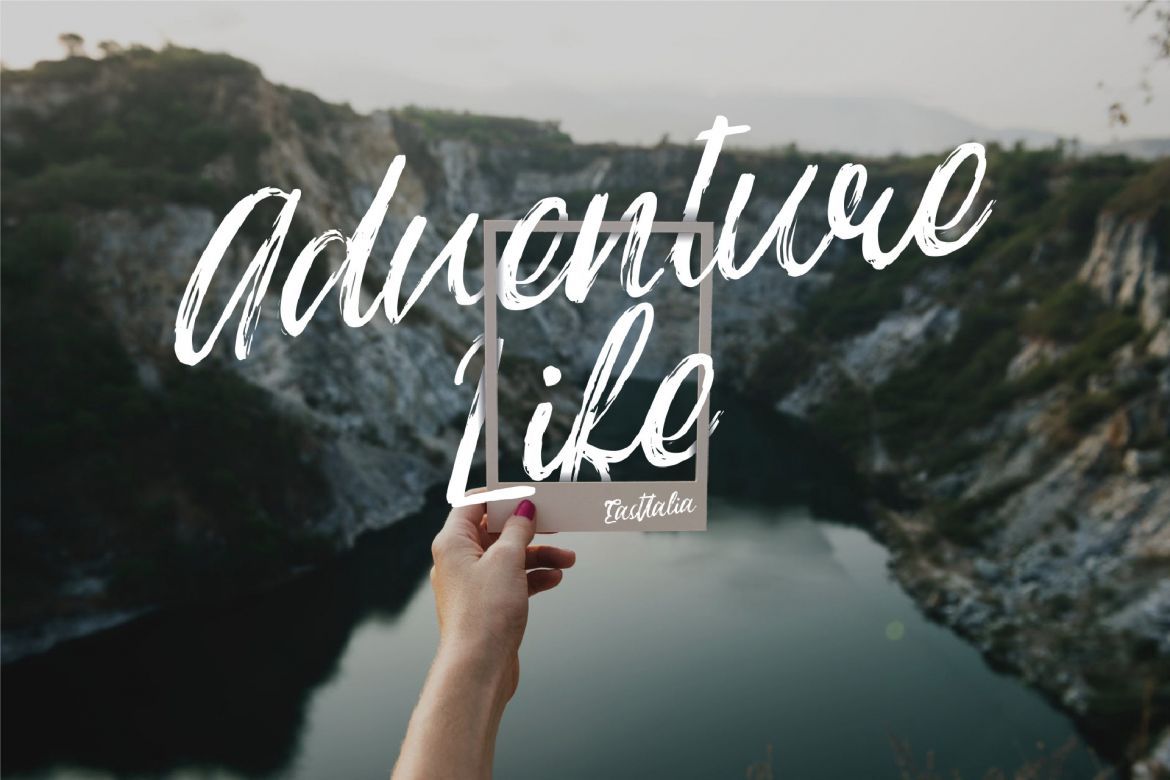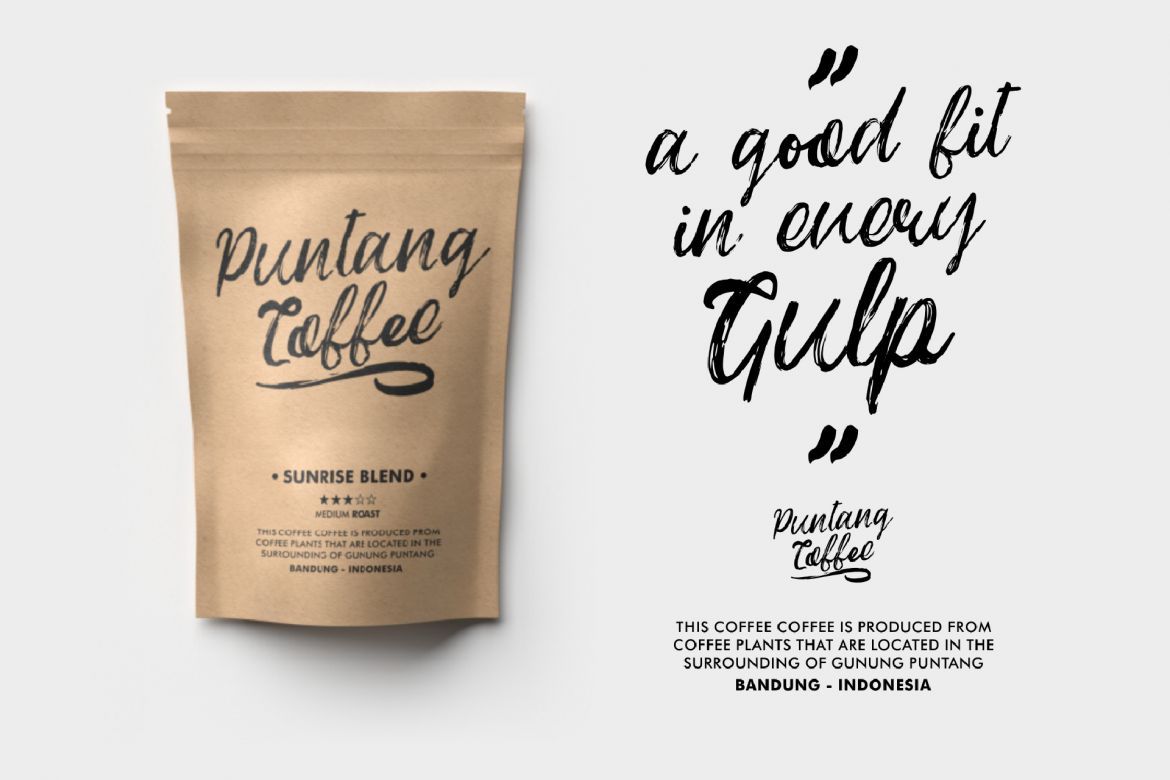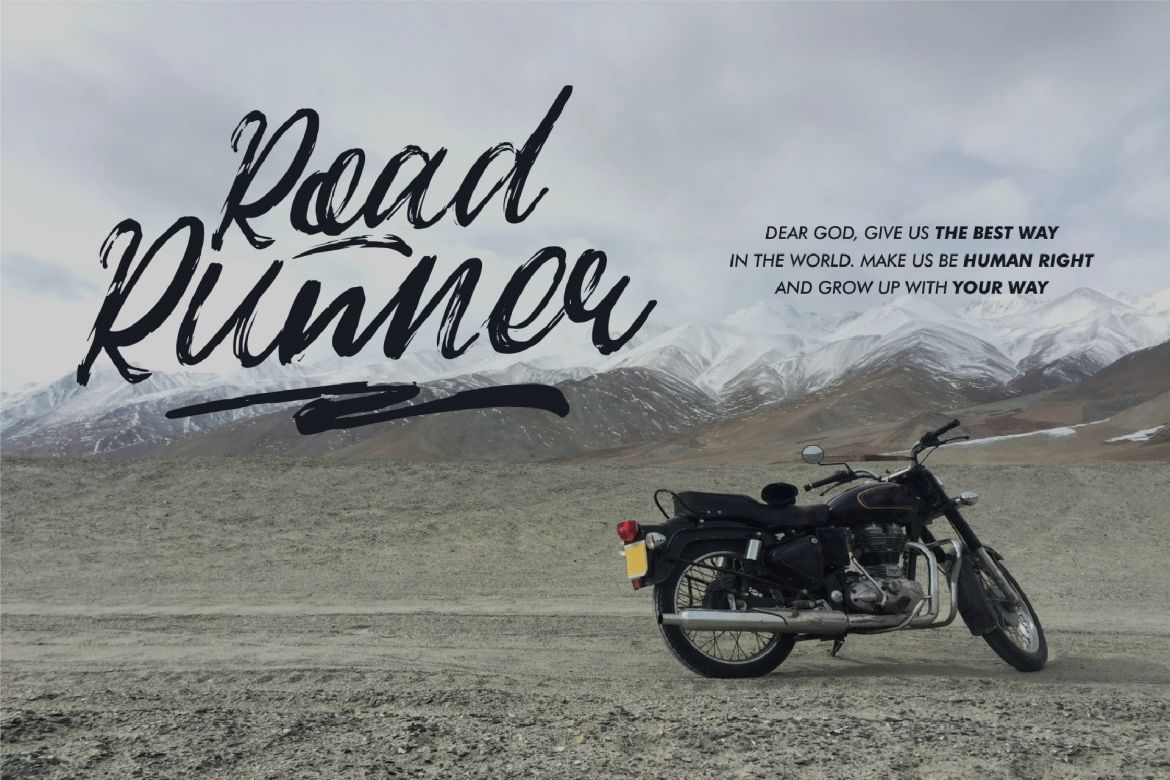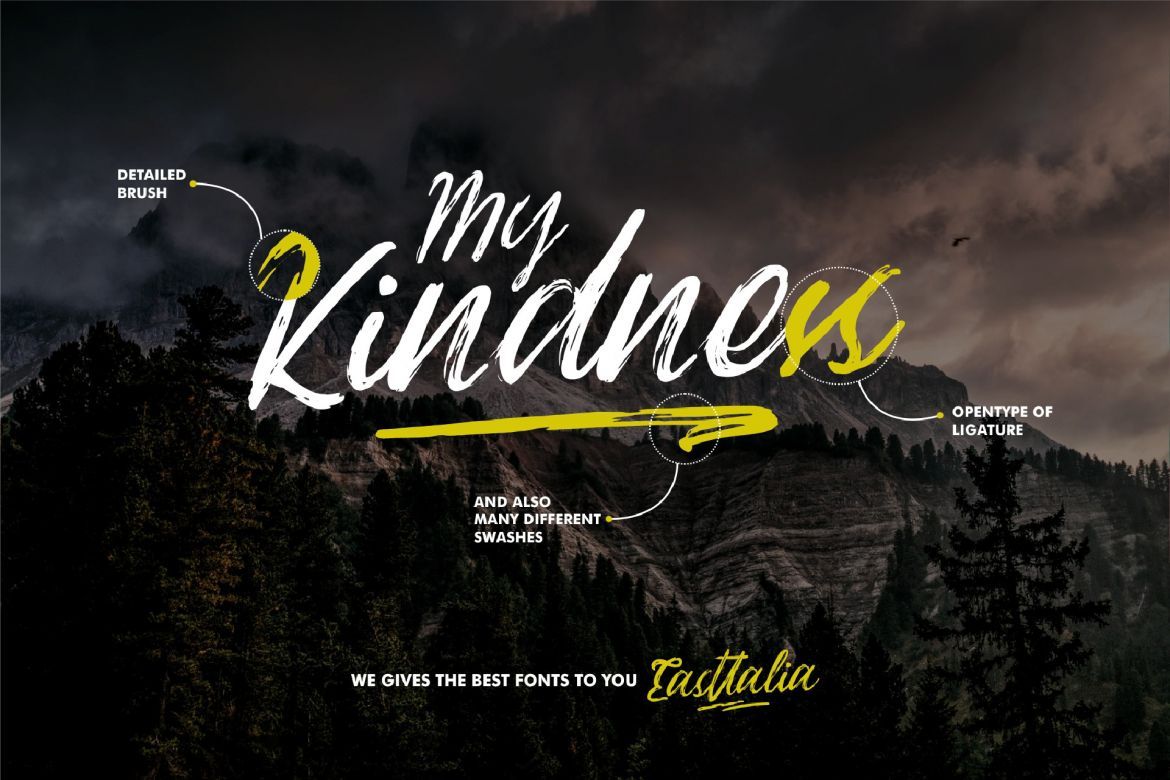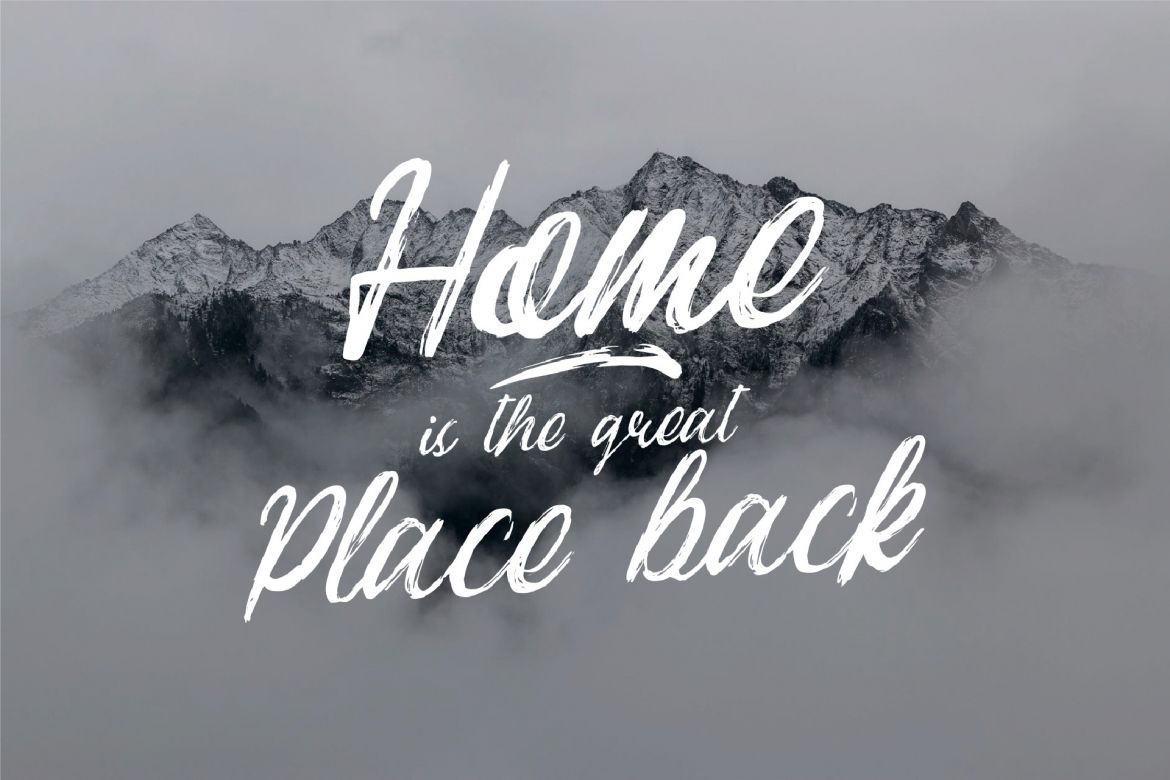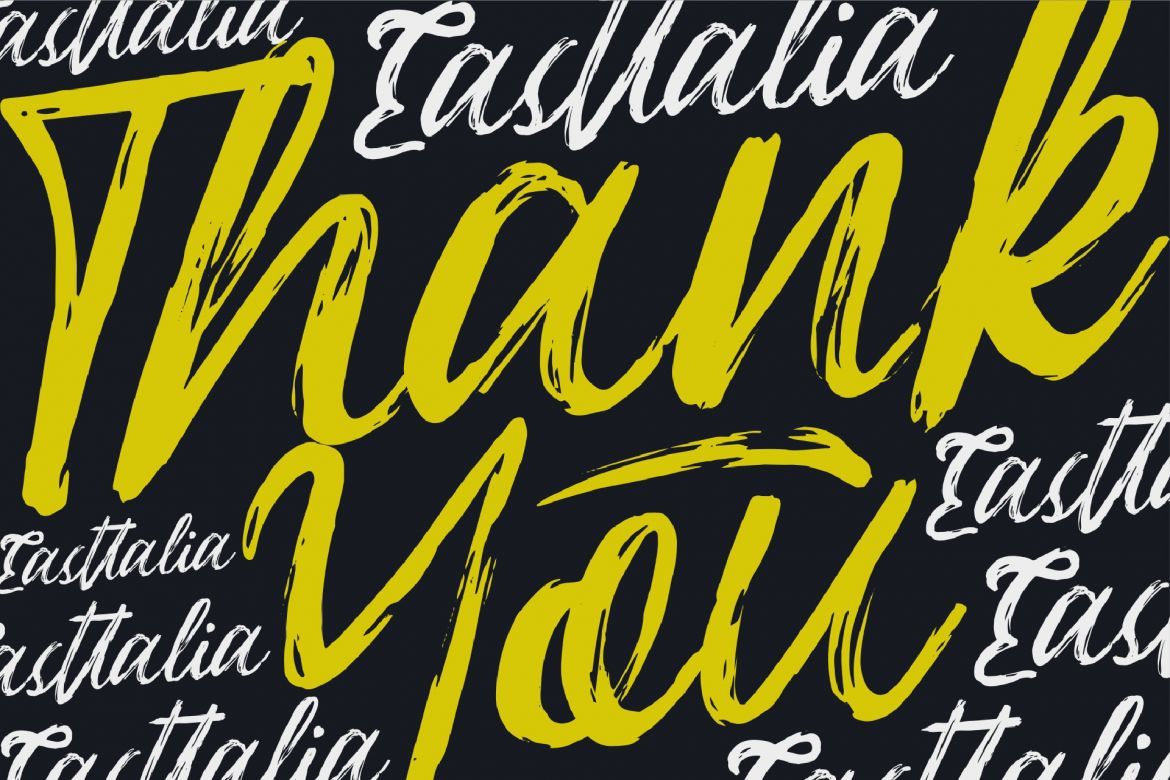
Easttalia - Brush Font
Easttalia comes with included uppercase, lowercase, numerals, punctuations, common ligatures and also additional swash to let you customize your designs. LOTS OF BEAUTIFUL & BRUSHES SWASHES. And this font was support for 26 languages, open PUA encoded (no need additional software)
• detailed brushes script
• lots of different swashes
• opentype ligature
• support 26 language